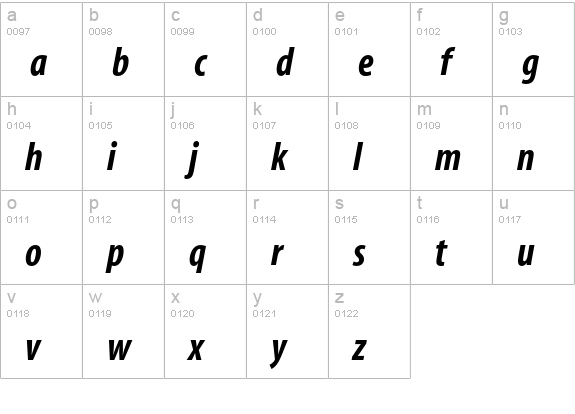
Myriad Bold Condensed Italic Font Details
Myriad Bold Condensed Italic is a strong, high-contrast, condensed-width, italic variant in the Myriad typeface family \xE2\x80\x94 well suited to headlines, attention-grabbing titles, and strong calls-to-action.
Myriad Bold Condensed Italic font is a versatile and striking typeface that exudes modernity and sophistication. With its bold weight and condensed design, this font is perfect for creating impactful headlines, titles, and branding materials. The italic style adds a touch of elegance and flair to any text, making it stand out from the crowd. Best of all, Myriad Bold Condensed Italic font is available for free download at FontsMarket.com. Whether you're a designer looking to add a bold twist to your projects or a business owner in need of a sleek and professional font for your branding, this font has you covered. Download it today and elevate your designs with this stylish and eye-catching typeface.